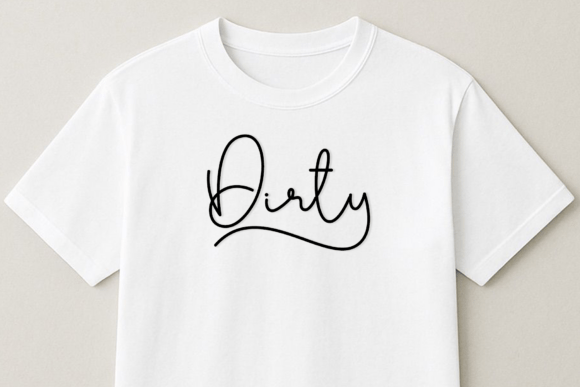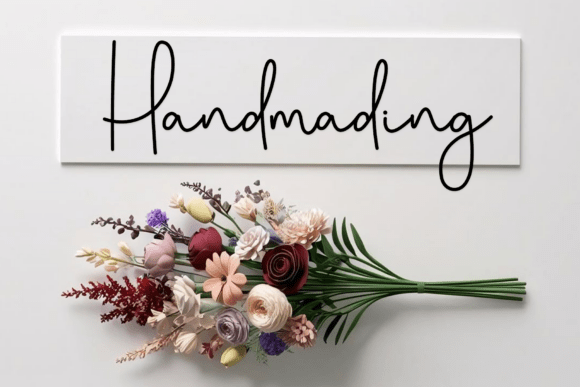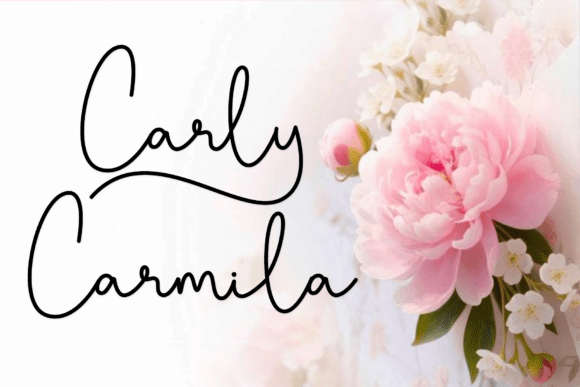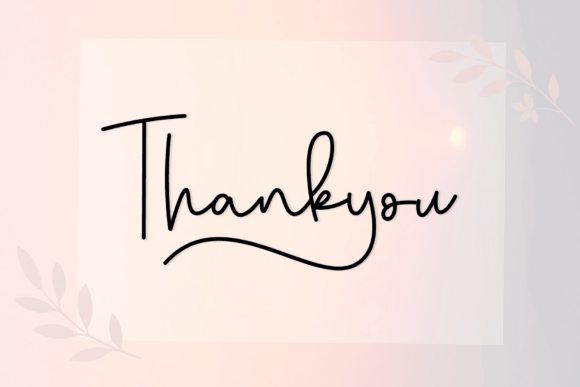
Introduction to Difficulty Font
Difficulty is a lovely and timeless handwritten font.
| 📌 Product Name | Difficulty Font |
Key Features of Difficulty Font